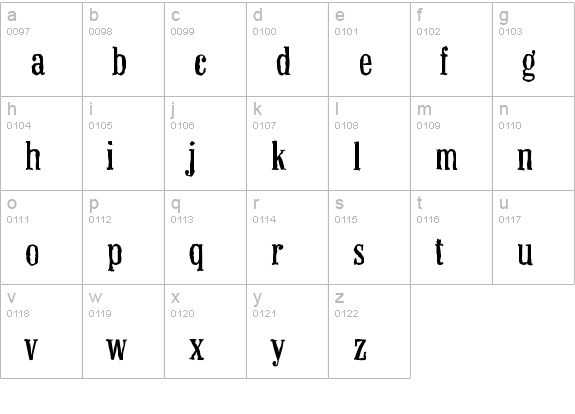
ColonelAntique-Regular Font Details
ColonelAntique-Regular is the standard, neutral variant in the ColonelAntique typeface family \xE2\x80\x94 well suited to general body text, paragraphs, and standard typographic work.
ColonelAntique-Regular font exudes a timeless elegance and sophistication, reminiscent of antique typography from centuries past. Its intricate details and vintage charm make it a perfect choice for projects that require a touch of old-world refinement. This meticulously crafted font features ornate serifs and delicate curves that add a touch of classic beauty to any design. Whether you're working on a historical project, wedding invitations, or branding materials that require a touch of vintage flair, ColonelAntique-Regular is sure to make a lasting impression. The best part? ColonelAntique-Regular font is available for free download at FontsMarket.com, making it accessible to anyone looking to add a touch of timeless beauty to their projects. Download it today and elevate your designs with this exquisite antique-inspired typeface.